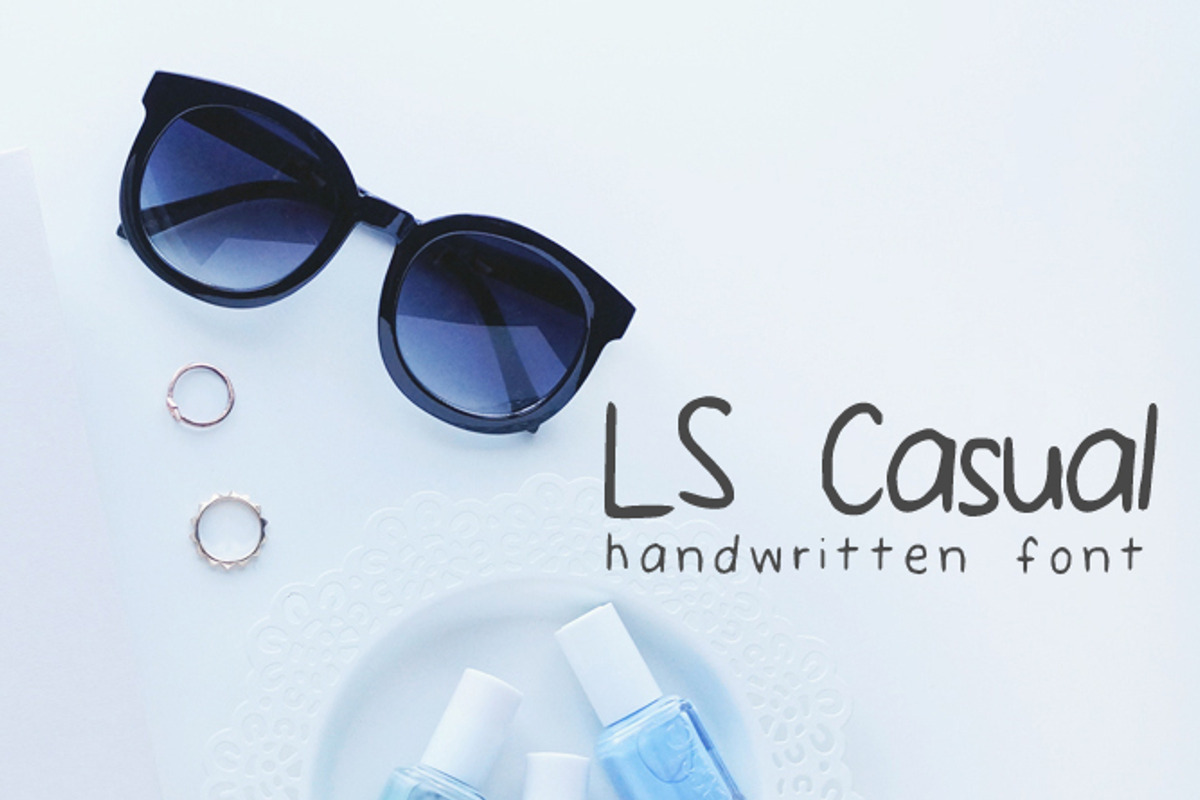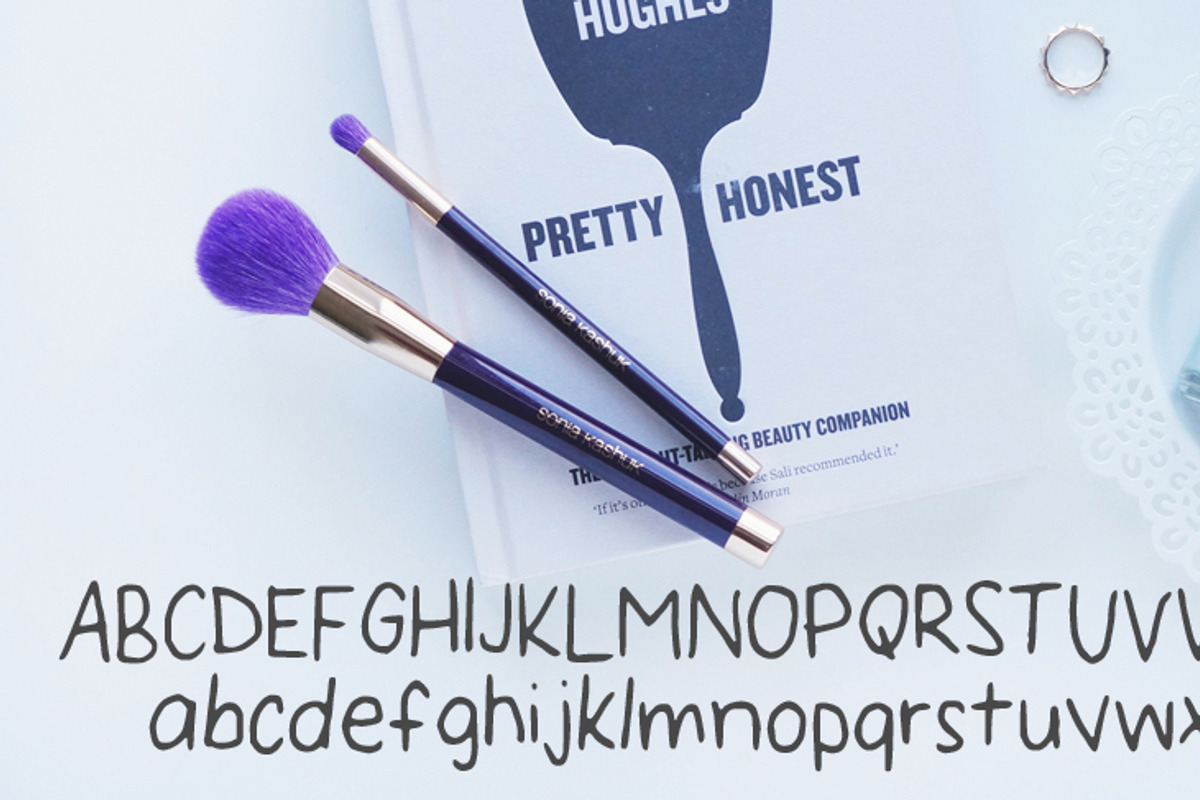
LS Casual - Handwritten Font
LS Casual - Handwritten Font by laurenschroer is a font selected for branding, posters, packaging, typography.
Why LS Casual - Handwritten Font is worth a look
LS Casual - Handwritten Font by laurenschroer fits naturally into Branding, posters, packaging, typography.